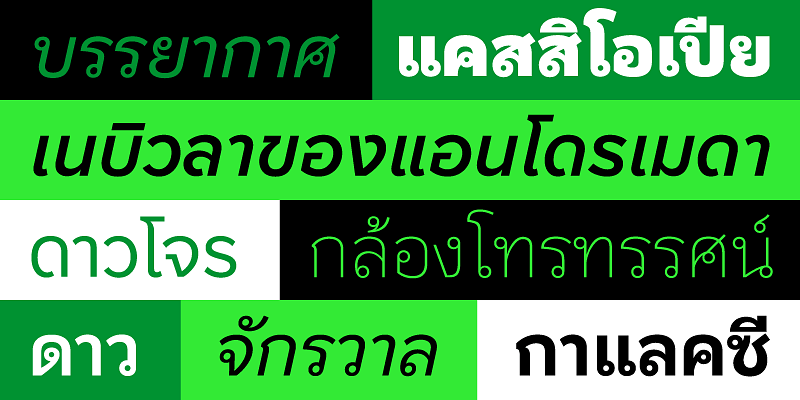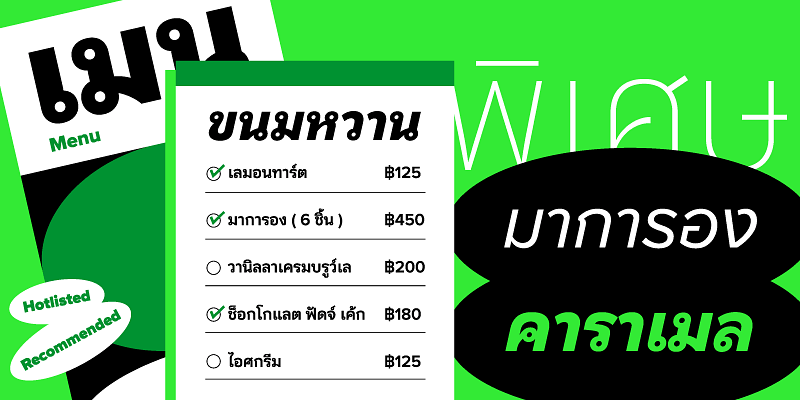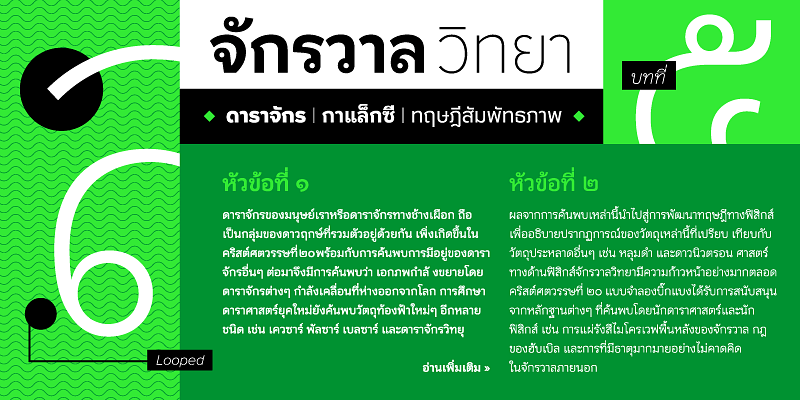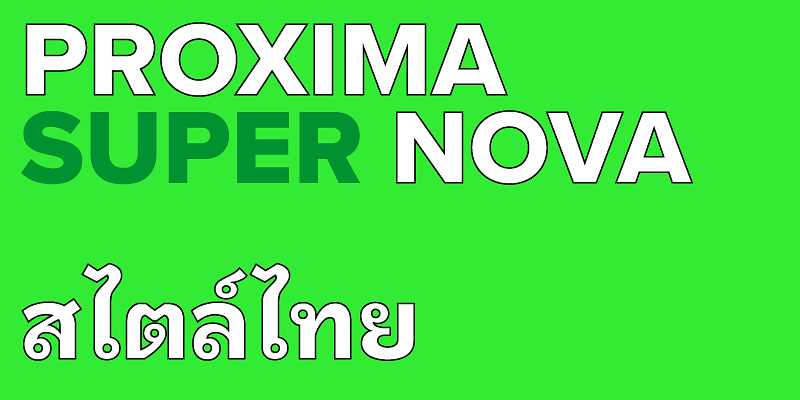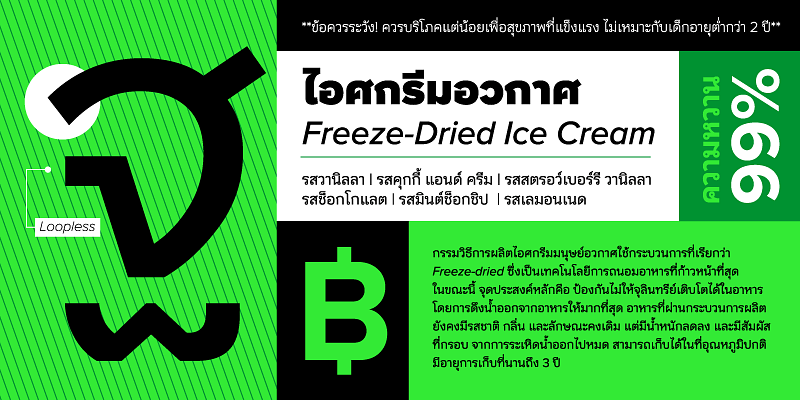
Proxima Nova Thai (2024) was designed by Cadson Demak for Mark Simonson’s ever-popular Proxima Nova. Available in a practical loopless style for display settings and a traditional looped for text and UI, Proxima Nova Thai works seamlessly with the original Latin without losing the script’s texture or cultural significance. Featuring an extended Latin and Vietnamese character set in eight weights plus matching italics, this growing family of typefaces is set to become even more popular worldwide.
Mark Simonson Studio is home to a range of typefaces that are as thoughtful and unique as their namesake, Mark Simonson. Each distinctive family of fonts is created as a tool for making things, not ends in themselves. For graphic designers and typographers, this means that each detail included was well-considered and will help your work look its very best. Whether display or text, sans, serif, or script, there is a perfectly suitable typeface that will fulfill every need in your design brief.